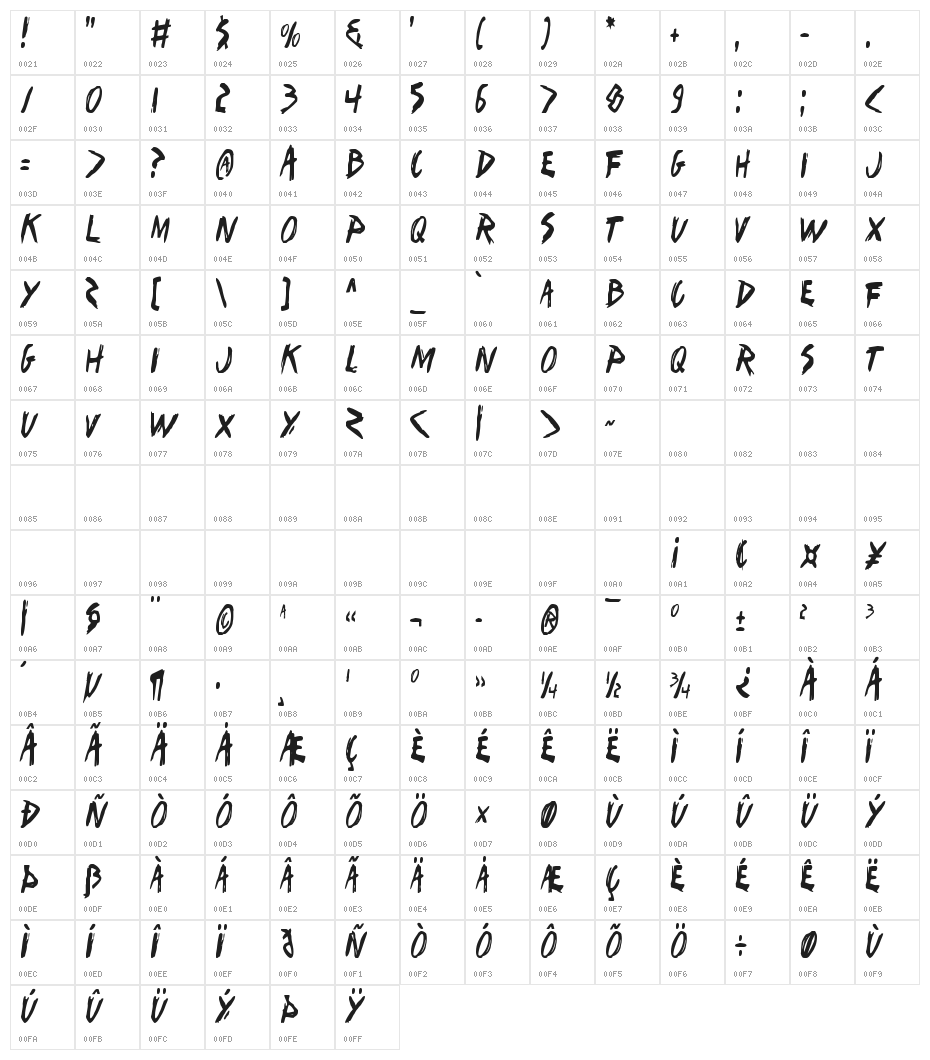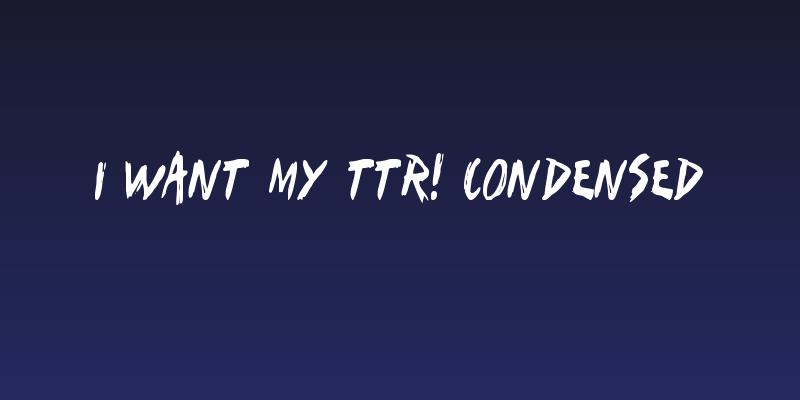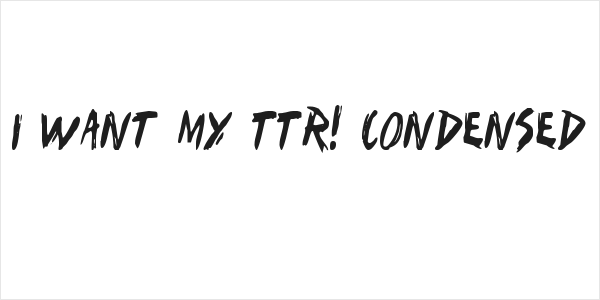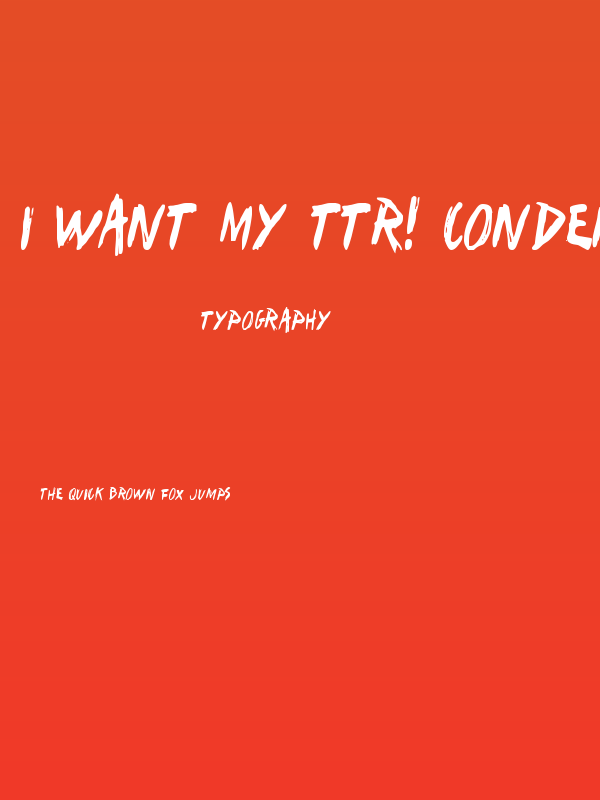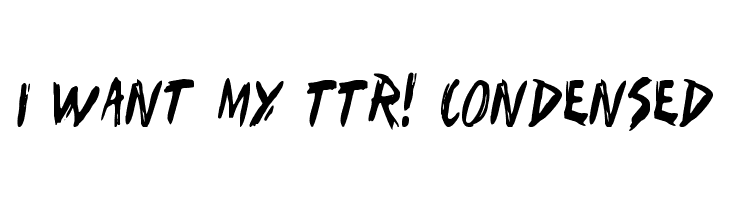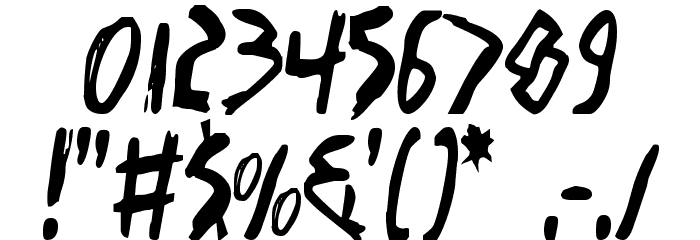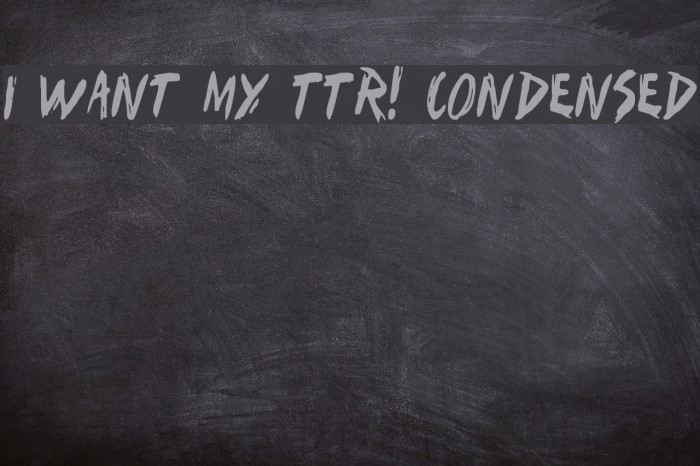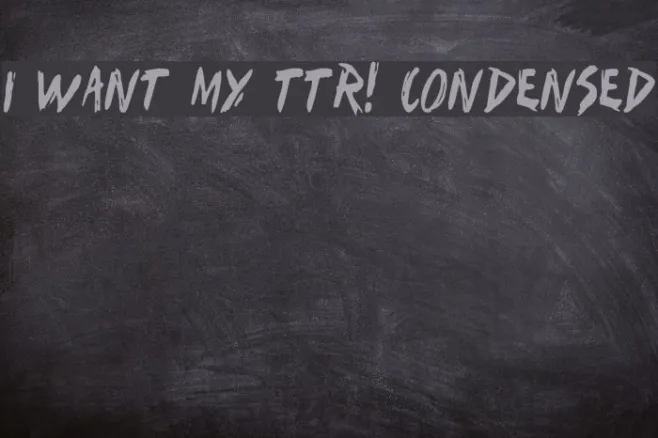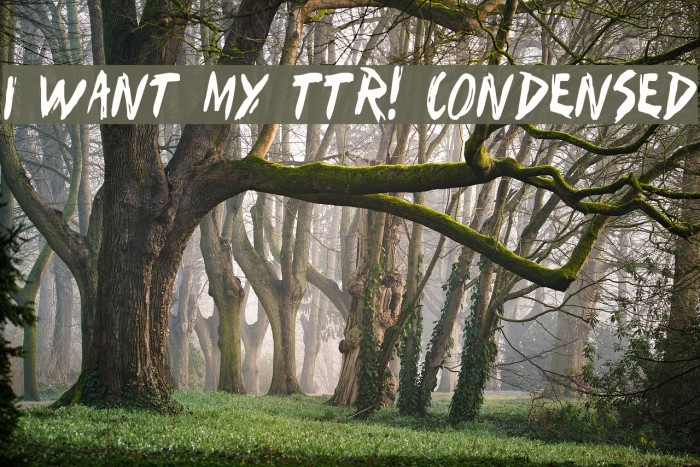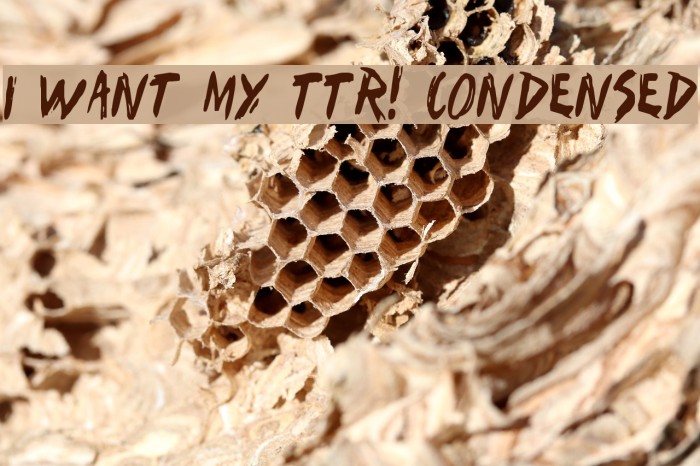
I Want My TTR! Condensed Font
I Want My TTR! Condensed Description
This font features a bold, expressive style with a hand-painted appearance. The characters are dynamic and energetic, with irregular strokes that give a sense of movement and spontaneity. The uppercase and lowercase letters maintain a consistent style, with sharp angles and varying stroke widths that add to the font's dramatic flair. The numbers and special characters are equally bold, ensuring a cohesive look across all text elements. This font's condensed nature allows for efficient use of space while maintaining legibility, making it suitable for impactful designs.